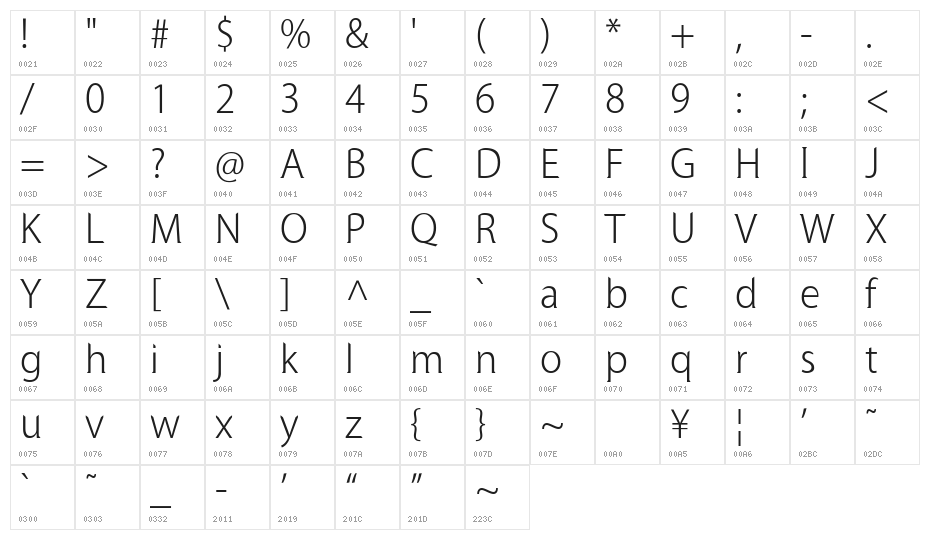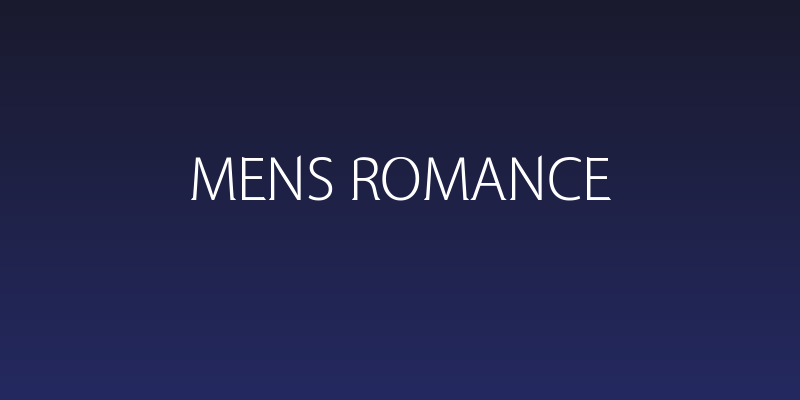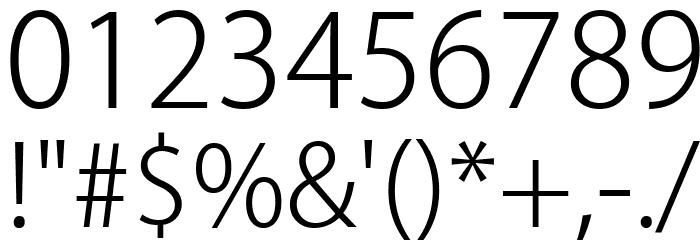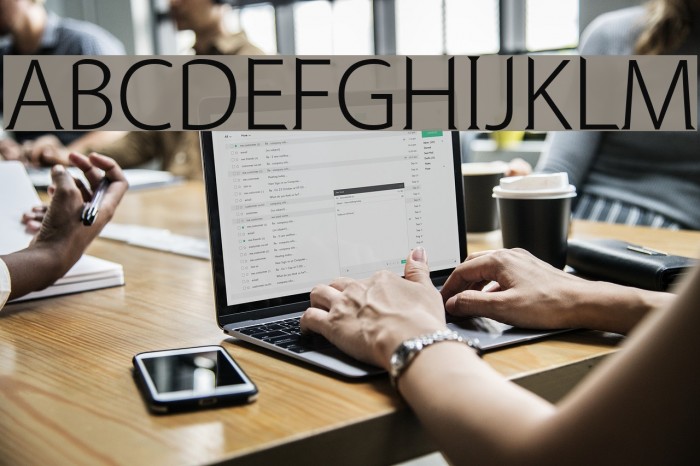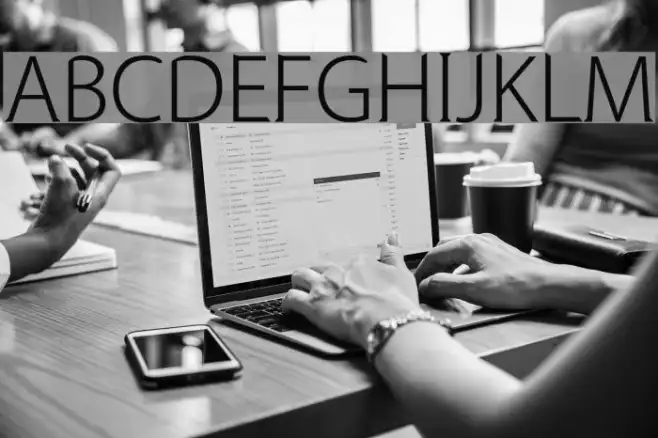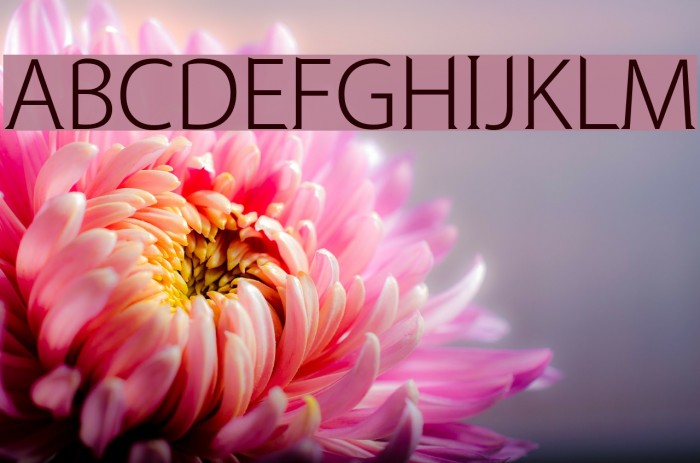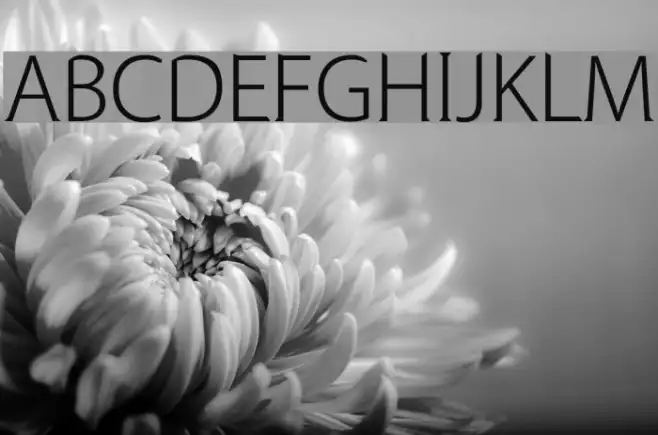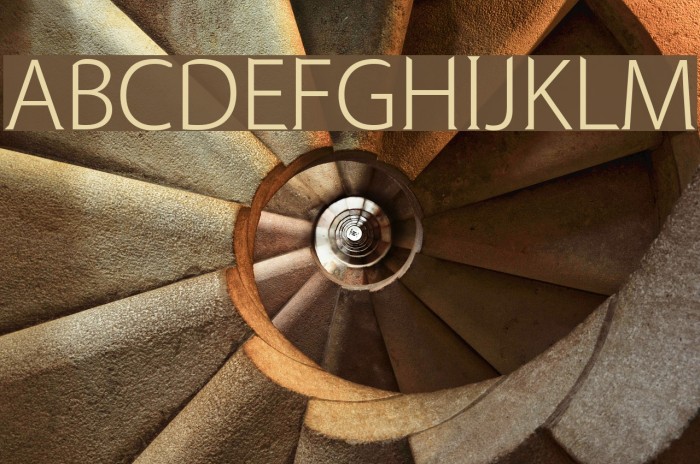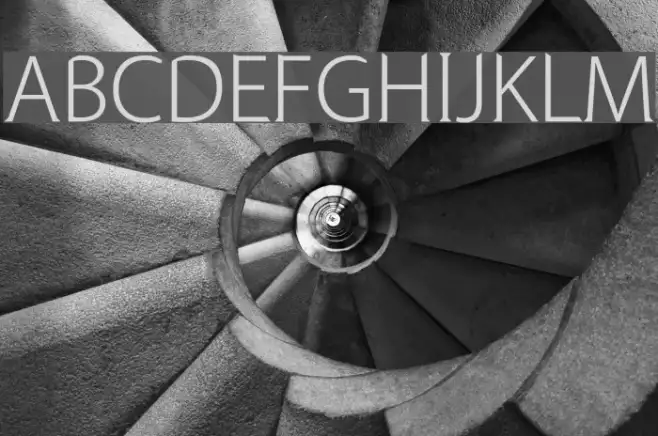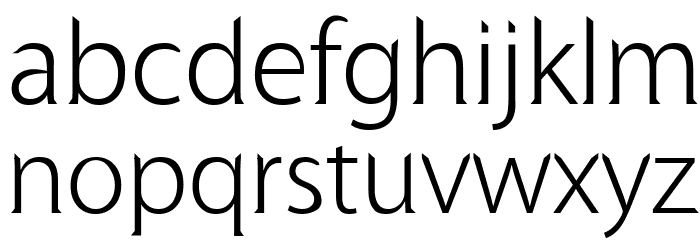
Mens Romance Font
Mens Romance Description
This font features a clean and modern sans-serif design with a focus on readability and simplicity. The characters are evenly spaced, with a consistent stroke width that gives it a balanced appearance. The uppercase letters are bold and assertive, while the lowercase letters maintain a friendly and approachable feel. The numerals are clear and distinct, making them easy to read. Special characters are well-integrated, maintaining the overall aesthetic of the font. This typeface is versatile, suitable for both digital and print media.
MENS-ROMANCE UPPERCASE
MENS-ROMANCE LOWERCASE
MENS-ROMANCE OTHER CHARS
| Proposed Projects | Ideal for branding, web design, corporate materials, and editorial layouts. |